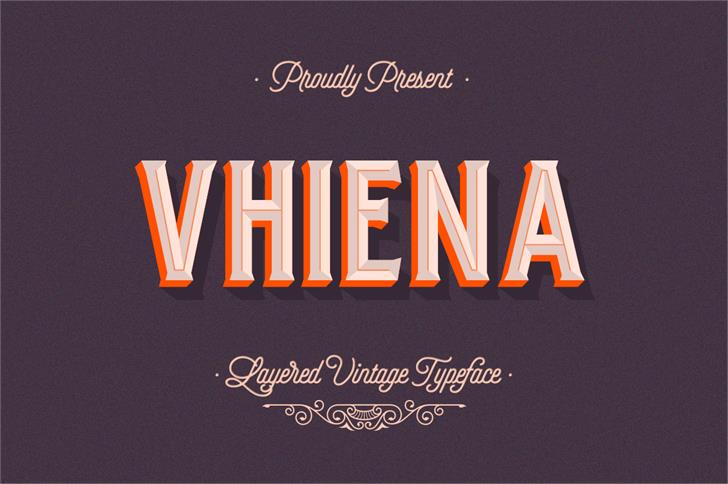
Vhiena Typeface
Vhiena Typeface – Is a family of fonts, with 8 fonts. Vhiena designed and shared by Lostvoltype. Vhiena is a vintage typeface was inspired by the likes of old serifs and classic bottles of whiskey and old labels. It is perfect for t-shirts, logos, packaging design, labels and much more.